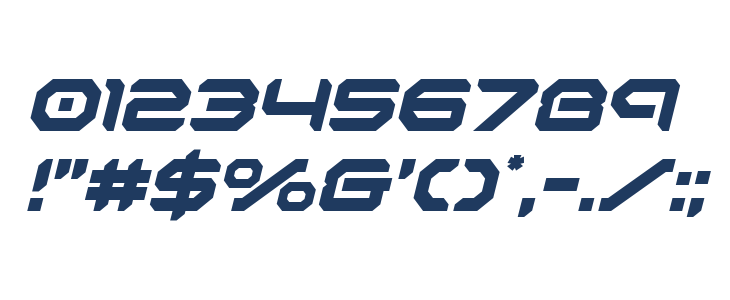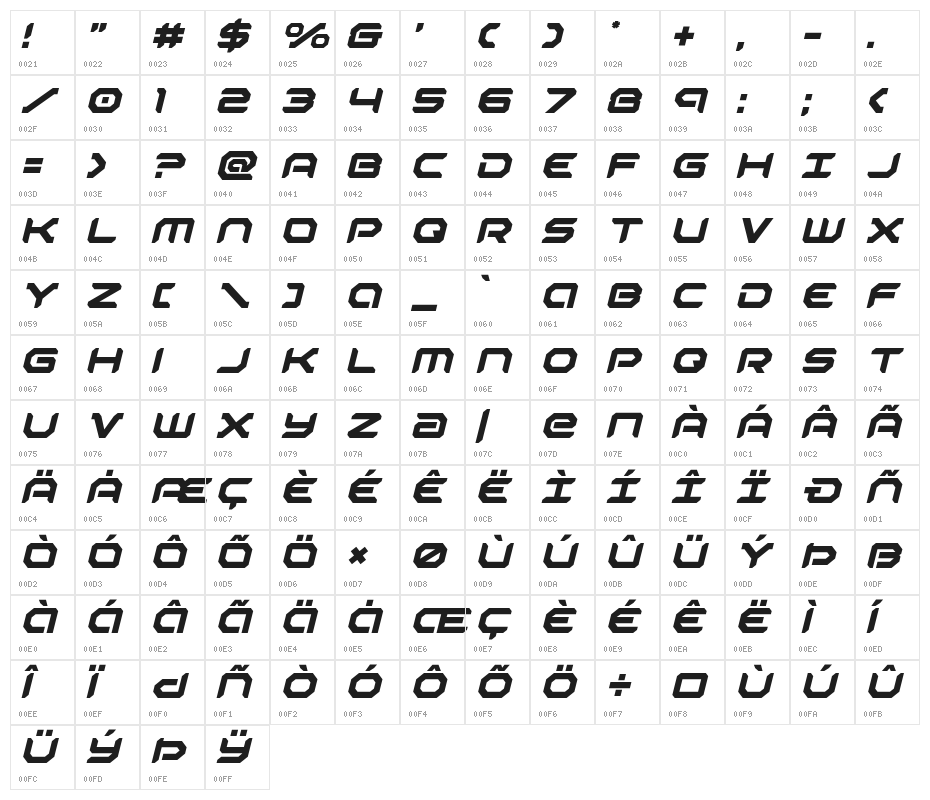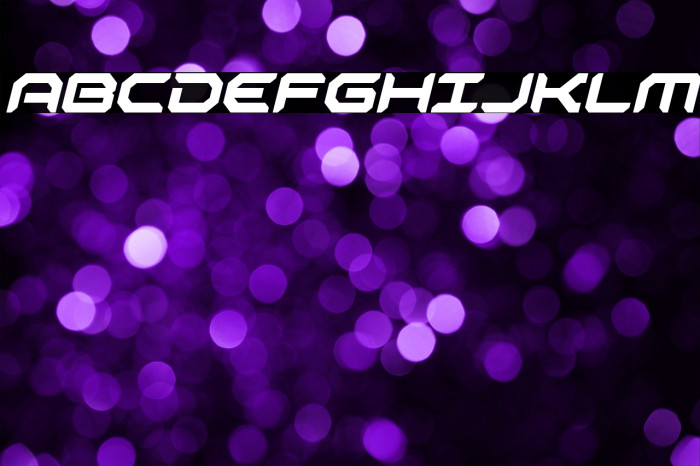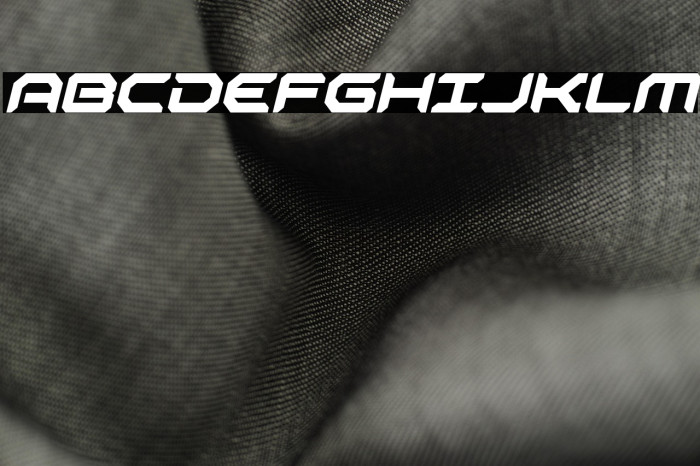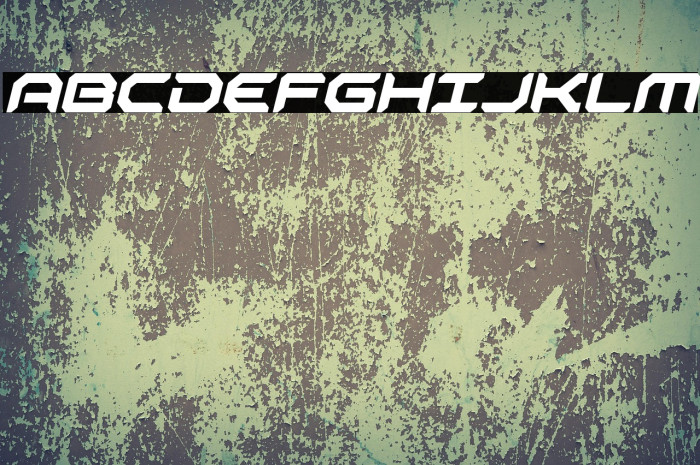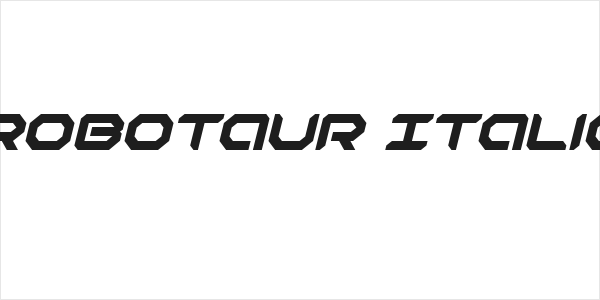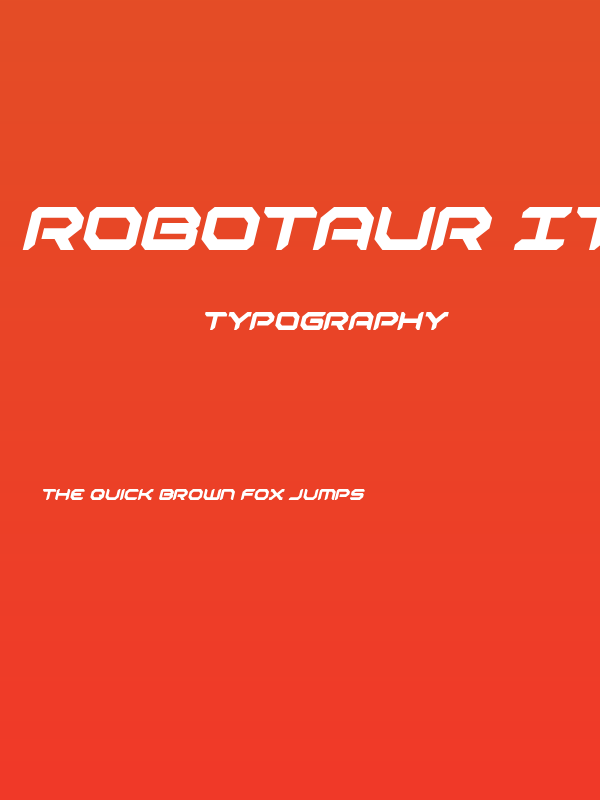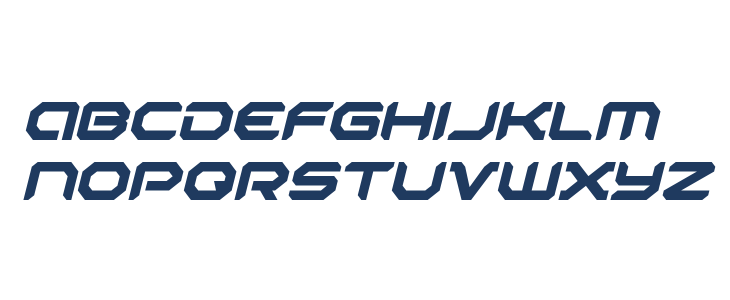
Robotaur Italic Font
Robotaur Italic Description
This font features a futuristic and angular design, characterized by its sharp edges and geometric shapes. The italic style adds a dynamic and forward-leaning appearance, enhancing its modern aesthetic. Each character is distinct with a consistent slant, giving the typeface a sense of motion and speed. The uppercase and lowercase letters maintain a uniform style, while the numerals and special characters complement the overall design. The font's boldness and unique structure make it stand out, ideal for projects that require a contemporary and tech-inspired look.
| Proposed Projects | Ideal for tech branding, video game titles, sci-fi posters, and modern digital interfaces. |